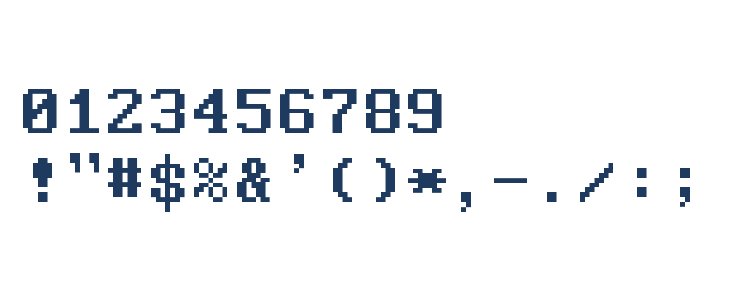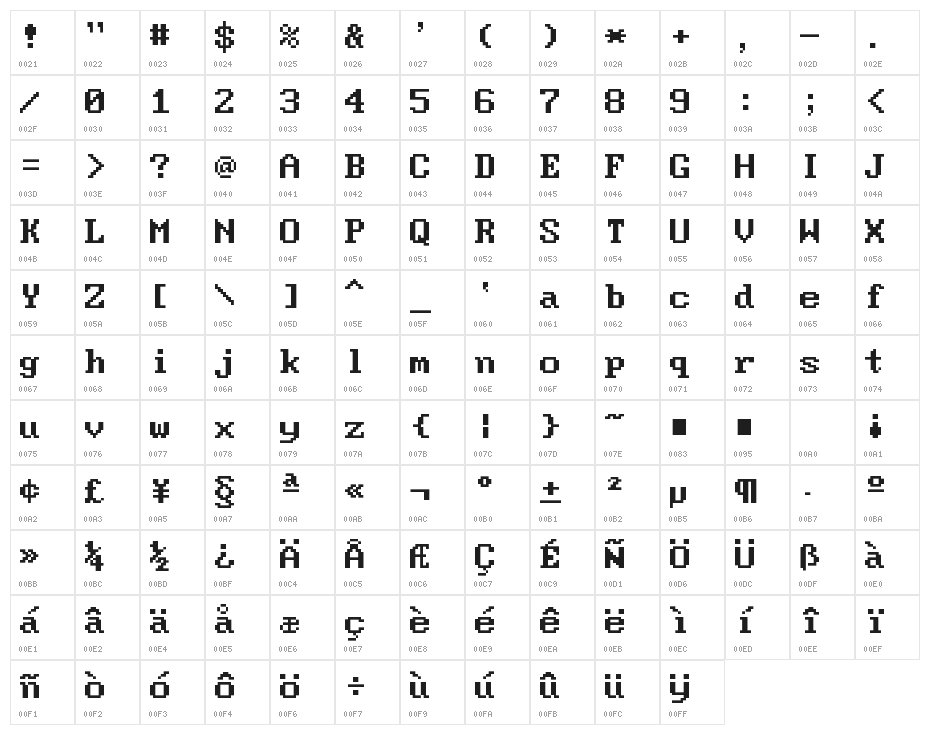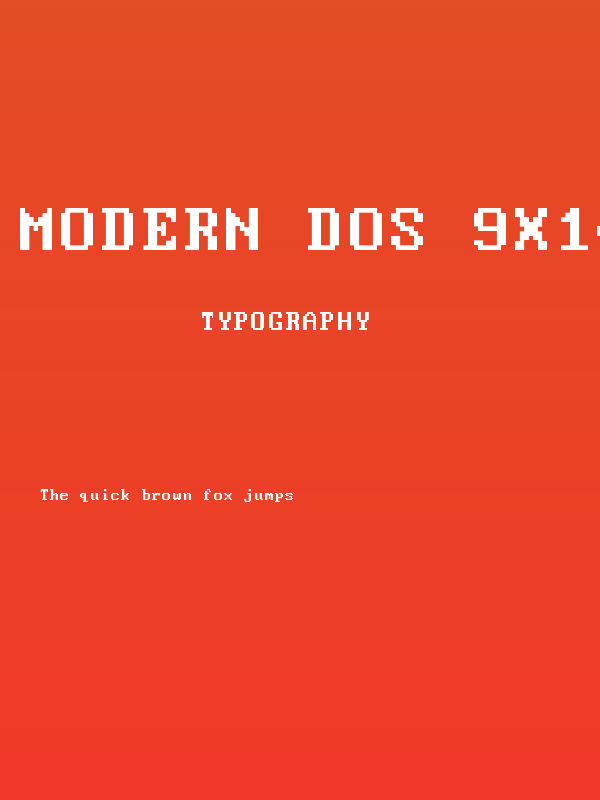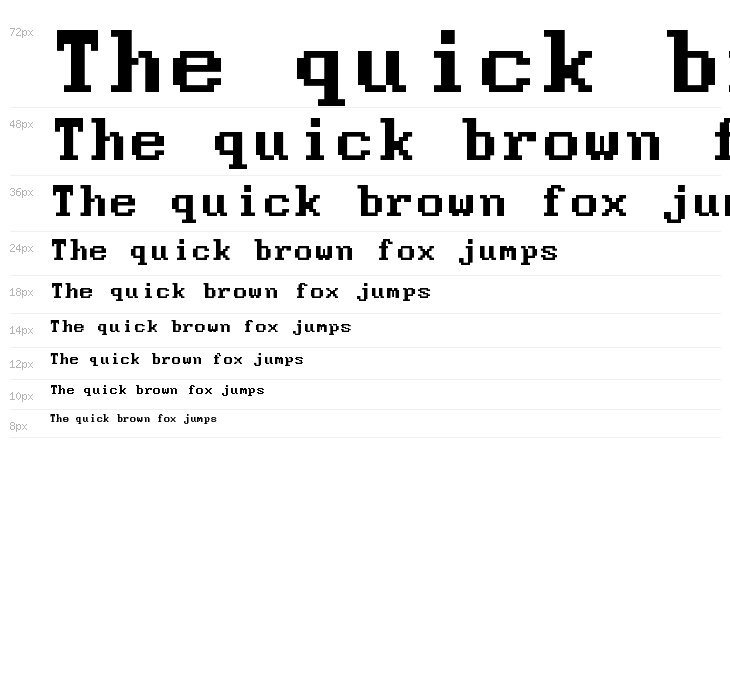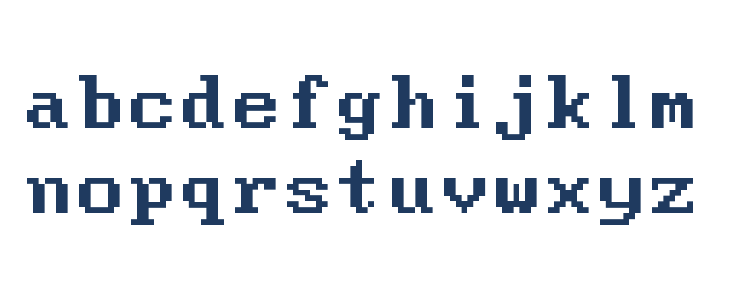
Modern DOS 9x14 Font
Modern DOS 9x14 Description
This font features a distinct pixelated style reminiscent of classic computer and video game graphics. Each character is constructed with a grid-like appearance, giving it a retro, digital feel. The uppercase and lowercase letters maintain a consistent height and width, contributing to a uniform look. The numerals and special characters follow the same pixelated design, ensuring a cohesive aesthetic across all glyphs. This font is ideal for projects that aim to evoke nostalgia or a vintage tech vibe, such as retro-themed websites, video games, or digital art projects.
| Use Case | Headlines, Logos, Digital Art |
| Proposed Projects | Retro-themed websites, video games, digital art, tech-inspired designs. |